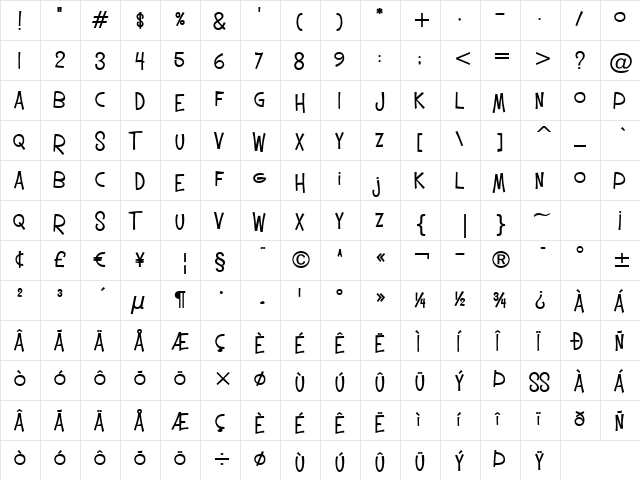
Mister Sirloin BTN Medium Regular
Mister Sirloin BTN Medium is a composed and adaptable typeface that performs quietly and consistently across a wide range of design contexts.